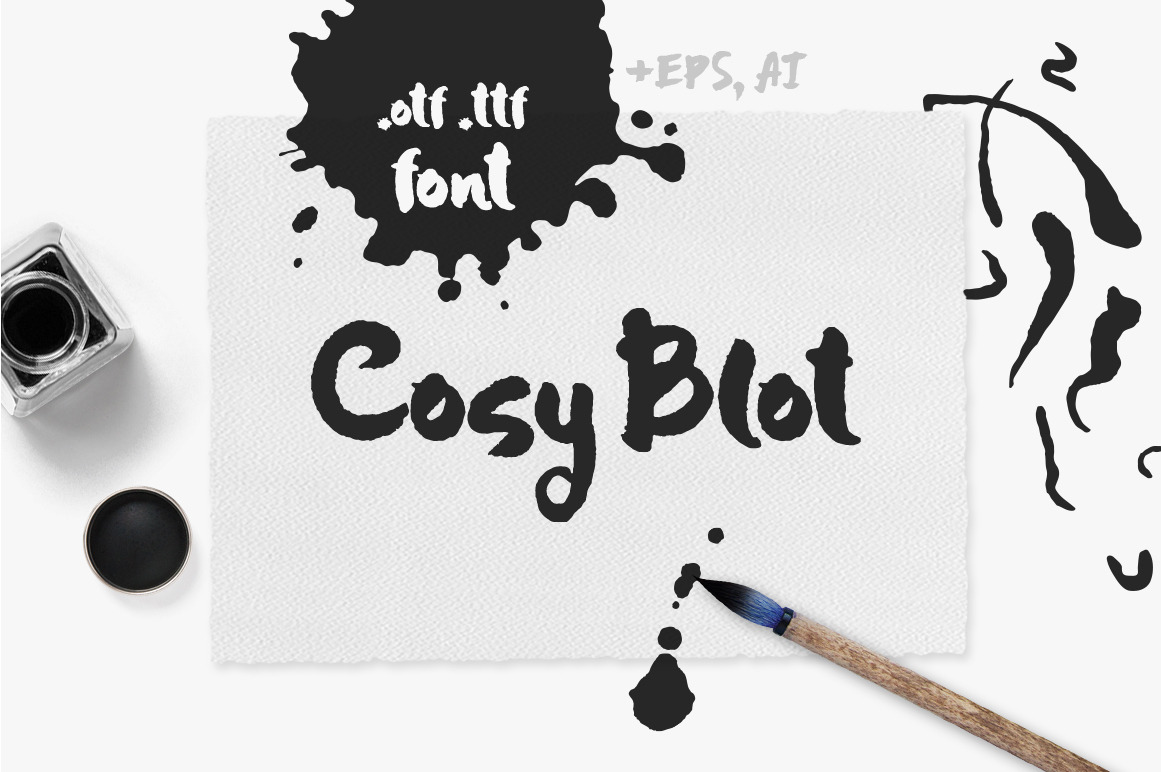
Cosy Blot Font
Cosy Blot is a handwritten font created with ink and brush that makes it lively and artistic. The font includes more than 140 glyphs: uppercase and lowercase basic characters, numbers and symbols such as punctuation marks, math and currency signs.